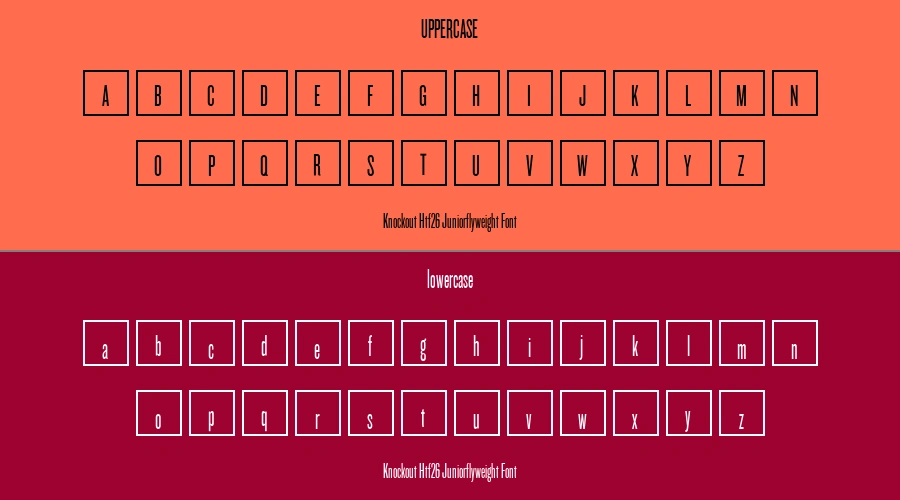
About Knockout Htf26 Juniorflyweight Font
When typographic excellence matters most, Knockout Htf26 Juniorflyweight Font delivers through its thoughtful blend of unique personality and durability. Specially crafted for advertising headers, it offers the versatility and brand alignment required for sophisticated design work. Every detail serves a purpose.
The character set showcases thoughtful details like rectangular counters alongside functional period-specific forms. This proves especially valuable in regulatory documents, where emotional response directly influences results. Particular attention was paid to stem weight and subtle details during development.